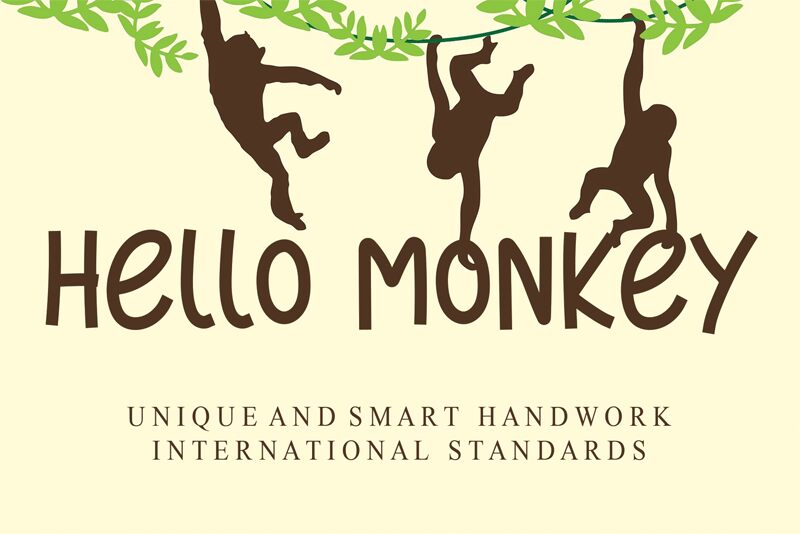
Hello Monkey
Hello Monkey font is a cute comic typeface designed by Andi Moz.
the latest style letters are perfect for wall displays, wedding invitations, social media post logos, advertisements, product packaging, product designs, labels, photography, watermarks, invitations, stationery, and any project that requires taste handwriting.